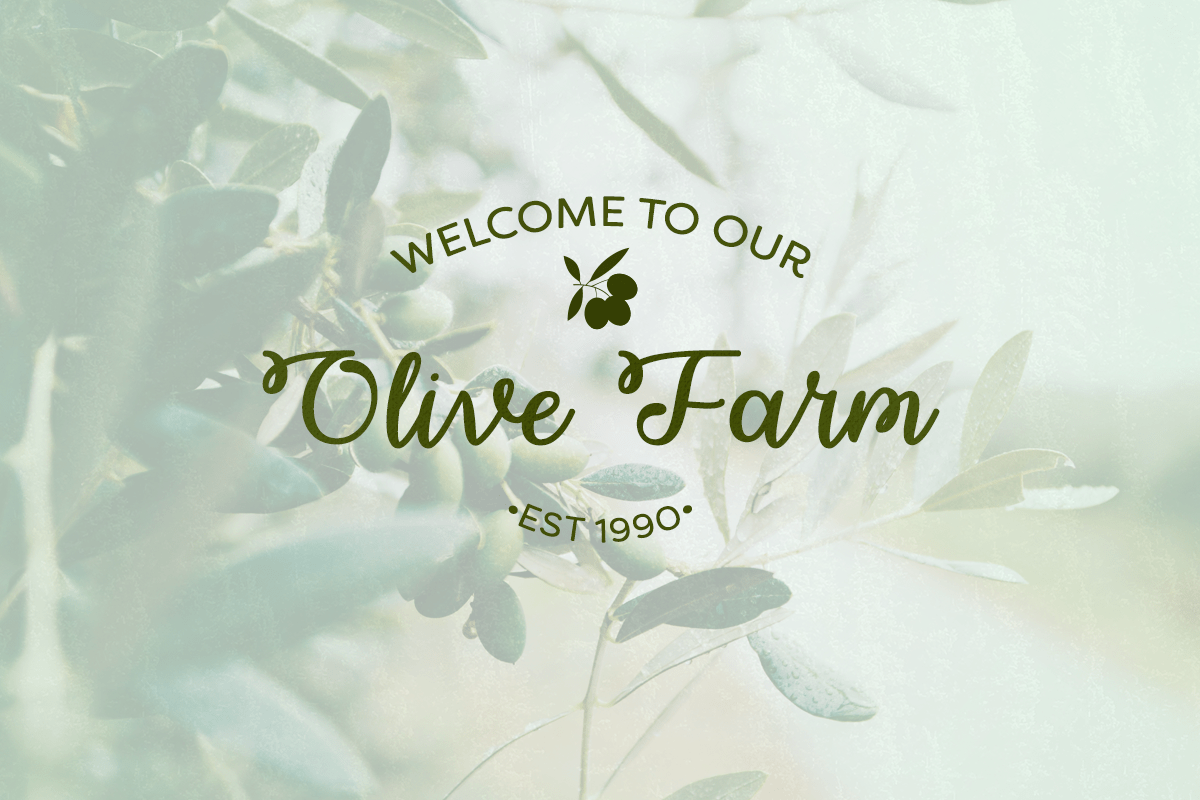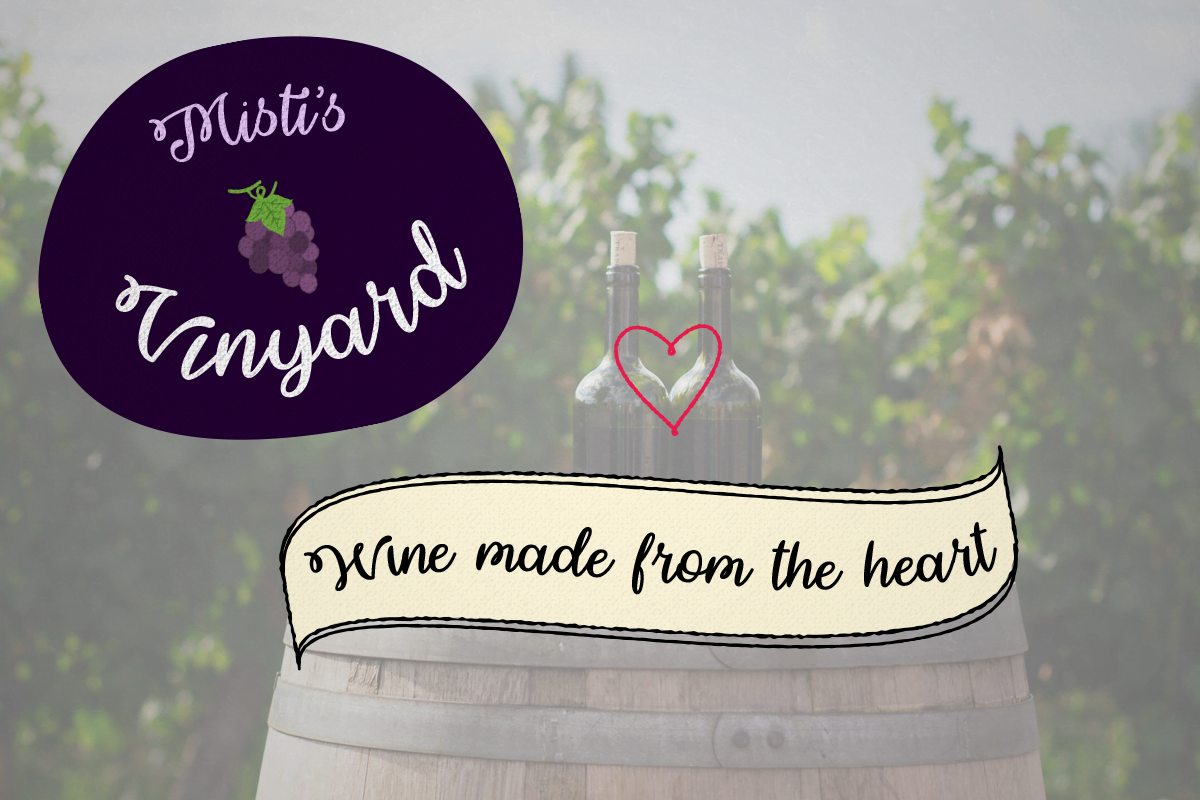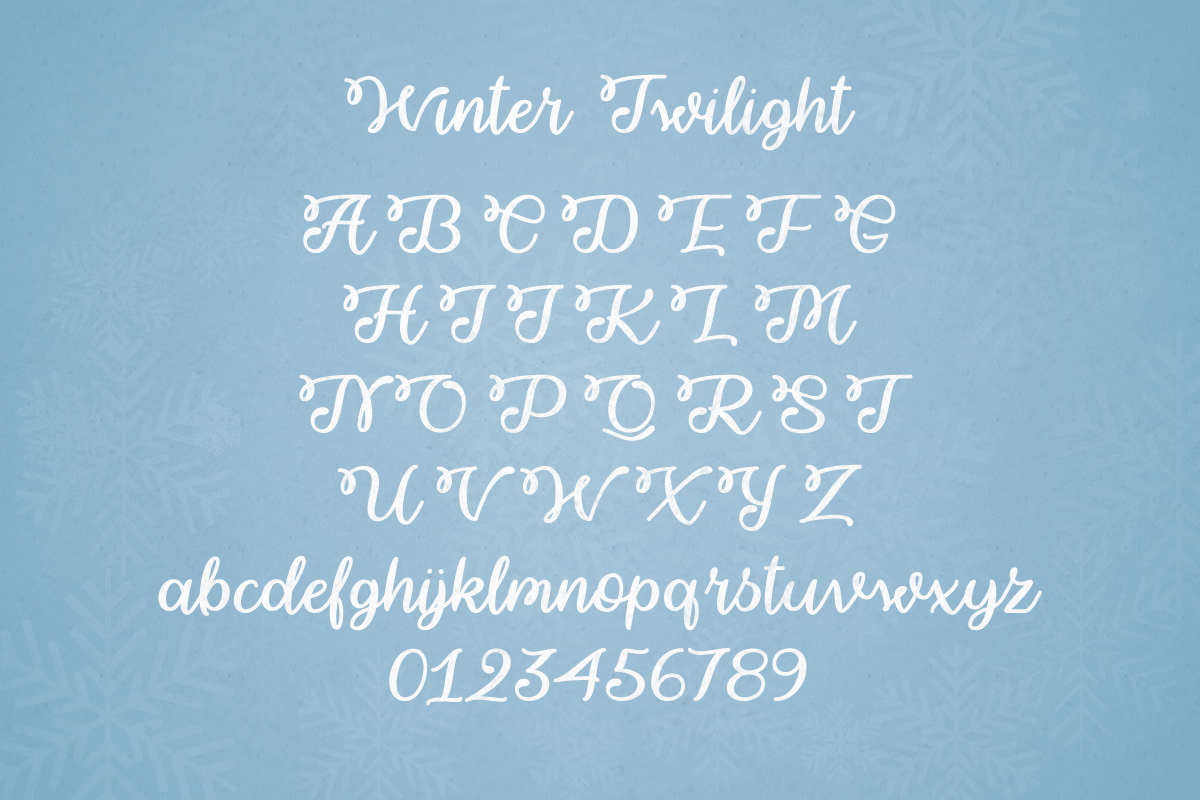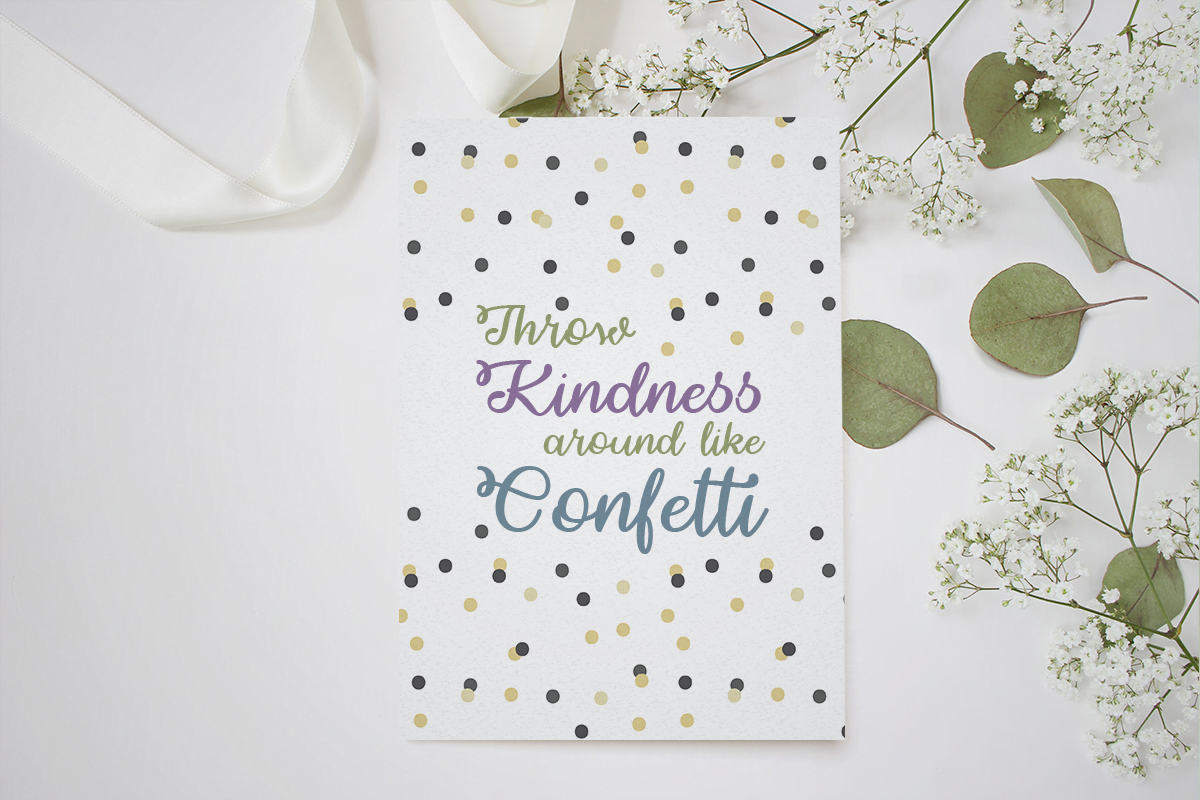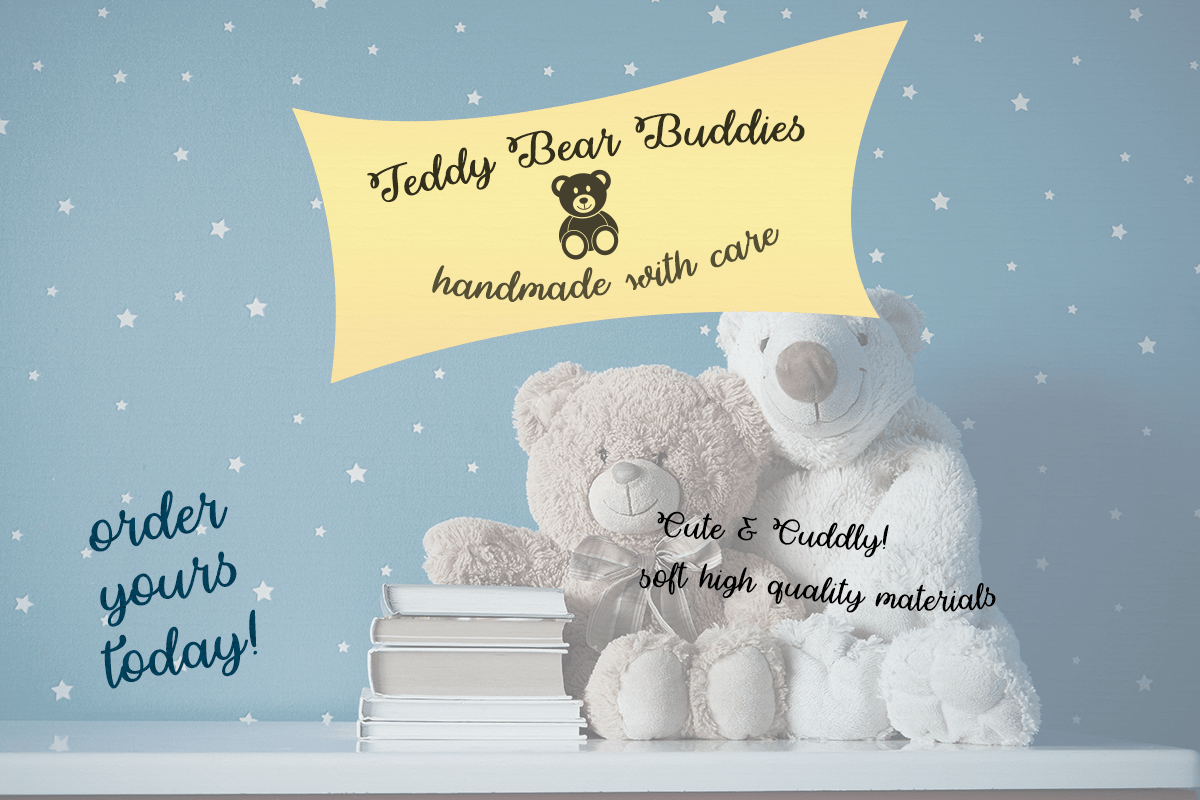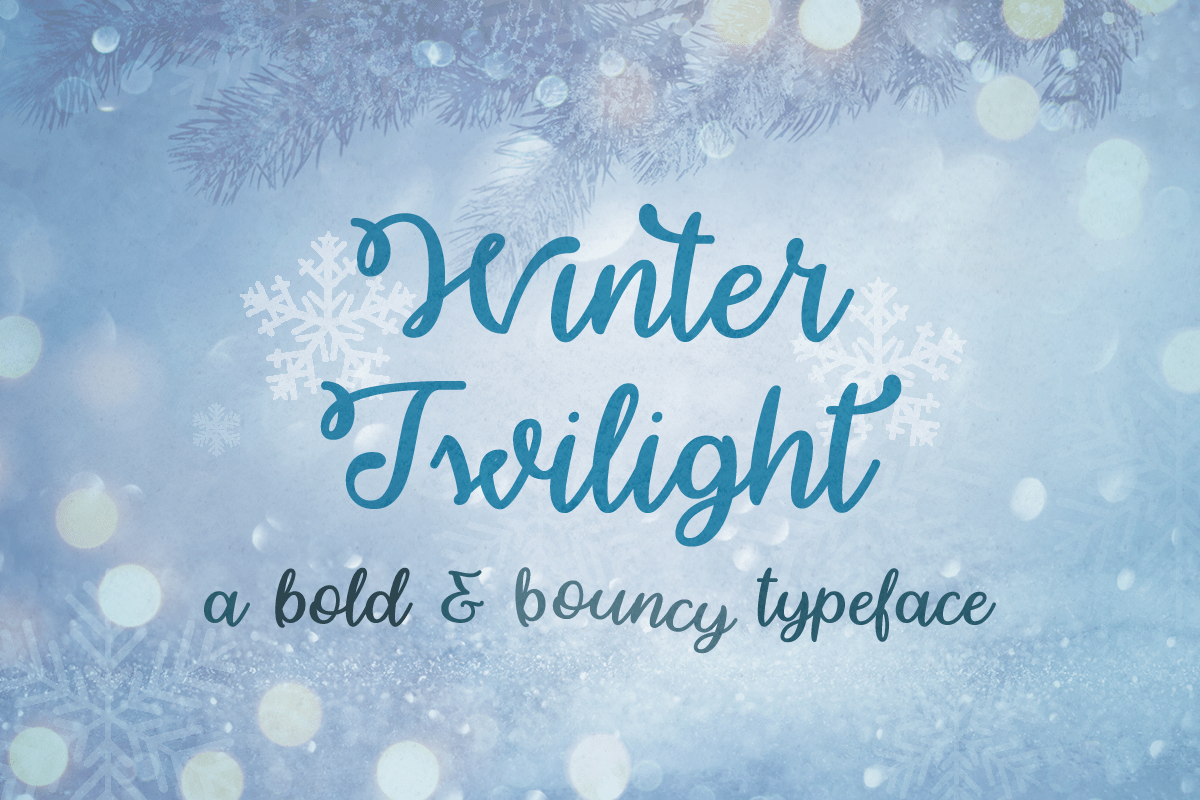
Winter Twilight
Winter Twilight is a charming typeface with lovely curls and bold & bouncy strokes. This typeface is perfect for advertisements, logos, product labels, graphics and so much more!